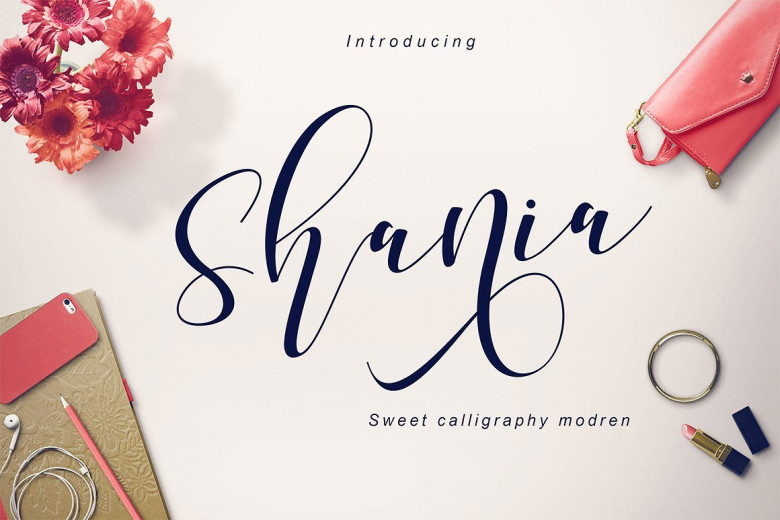
Shania Script Font
Introducing Shania Script Font! Shania Script designed by Teweka, this is a premium font, are sold on creativemarket, but it was great, it is free today for download. Shania a sweet calligraphy modern script style, decorative characters and a dancing baseline! So beautiful on invitation like greeting cards, branding materials, business cards, quotes, posters, and more!!